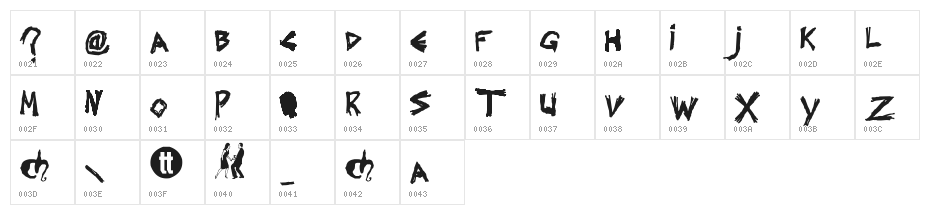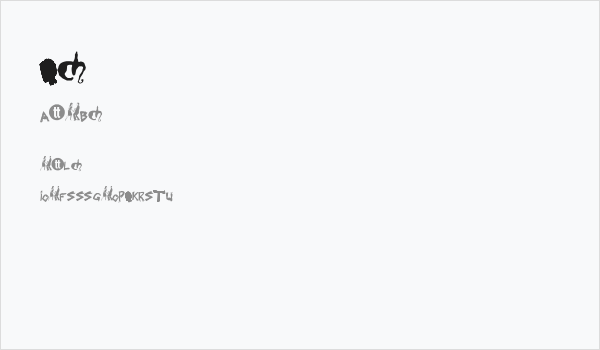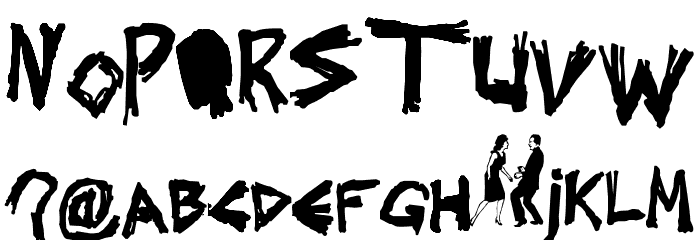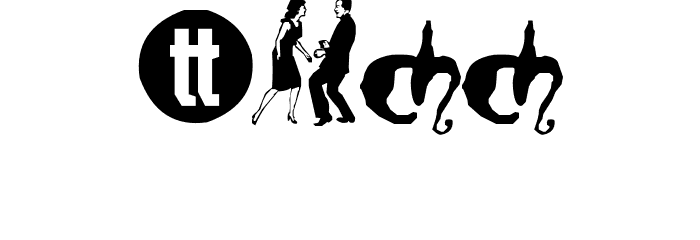
Splintered Font
Splintered Description
This font features a highly distressed and fragmented appearance, giving it a chaotic and edgy vibe. The letters are irregular and jagged, with varying thicknesses and rough edges that suggest a splintered or shattered effect. This style creates a sense of movement and energy, making it ideal for designs that require a bold and unconventional look. The font includes both uppercase and lowercase letters, numbers, and a selection of special characters. Its unique style is reminiscent of graffiti or street art, adding a rebellious and artistic flair to any project.
| Overall Style | Modern, Edgy |
| Proposed Projects | Ideal for album covers, posters, street art designs, and edgy branding projects. |